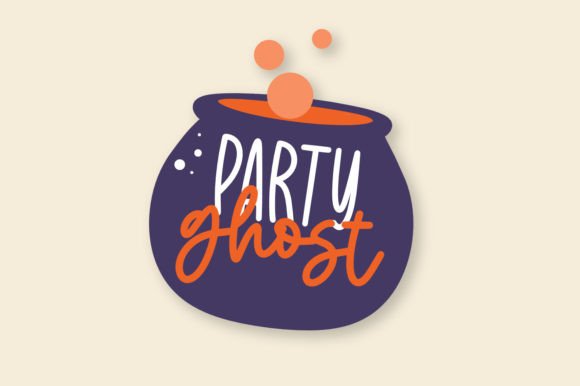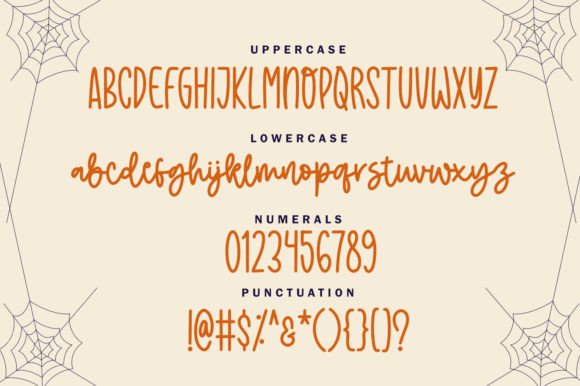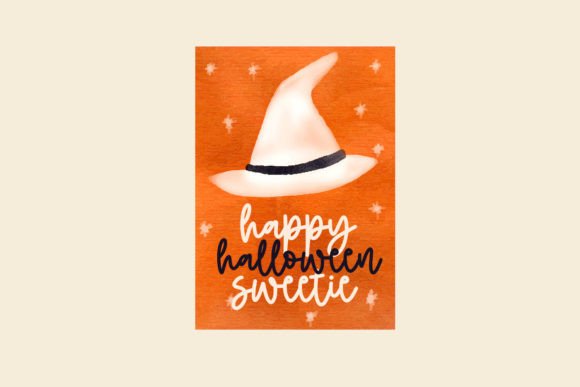
Introduction to Sadenly Night Font
Have you ever stumbled upon a font that instantly sparks a wave of creativity and makes you want to dive headfirst into a design project? For me, that moment came when I discovered the enchanting Sadenly Night Font. Its whimsical charm and delicate curves transported me to a world of possibilities, where anything seemed possible.
As a designer, I know how valuable it is to have a reliable design resource at our fingertips. And that’s exactly what the Sadenly Night Font offers – a high-quality, free download that can elevate any creative project. Whether you’re designing invitations, cards, or party paraphernalia, this font is sure to add a touch of magic to your work. With its transparent background and beautiful, handwritten style, it’s the perfect addition to any design collection.
Key Features of Sadenly Night Font
- High-quality design resource ideal for creative projects, offering a unique aesthetic for any visual presentation.
- Features a transparent background, allowing for seamless integration into various design applications.
- Unique characteristics include a bold and modern design, making it perfect for creating attention-grabbing headlines and titles.
- Perfect for designers working on a variety of creative projects, from branding and marketing materials to digital art and print media.
Honest Review: Sadenly Night Font
I recently came across the Sadenly Night Font while searching for a unique design resource for my creative project. I was immediately drawn to its sleek and modern aesthetic.
Here are some things that work well: ✨
- High quality and crisp typography
- Transparent background, making it easy to use in various design contexts
- Available in a range of font styles, including bold and italic
However, I did encounter a few limitations: ⚠️
- Only available in a limited number of languages
- Not ideal for use in small font sizes, as the letters can become difficult to read
Overall, I’m impressed with the Sadenly Night Font. It’s a great addition to any designer’s toolkit, and I appreciate its transparent background and free download. While it may have some limitations, I believe it’s a high-quality design resource that can elevate any creative project.
The Sadenly Night Font is a high-quality design resource ideal for various creative projects. Its sleek and modern design makes it a perfect addition to any project.
Tips for Getting the Most Out of Sadenly Night Font
For the best results, use the Sadenly Night Font in conjunction with other high-quality design elements. Experiment with different font sizes, styles, and colors to create a unique look that suits your project.
The Sadenly Night Font is ideal for a variety of projects, including:
- Business cards and marketing materials
- Graphic design and visual arts